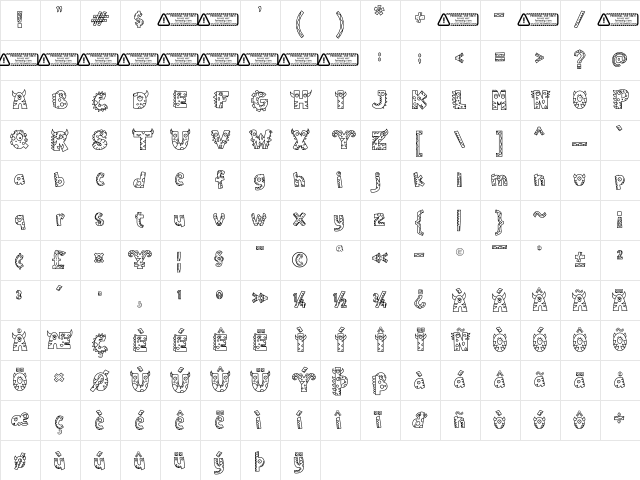
Monsterazor Regular Free Font
Monsterazor Regular
Foundry: Kong Font
Designer: Kong Font
Design Context for Monsterazor
Monsterazor is a composed and adaptable typeface that performs quietly and consistently across a wide range of design contexts.